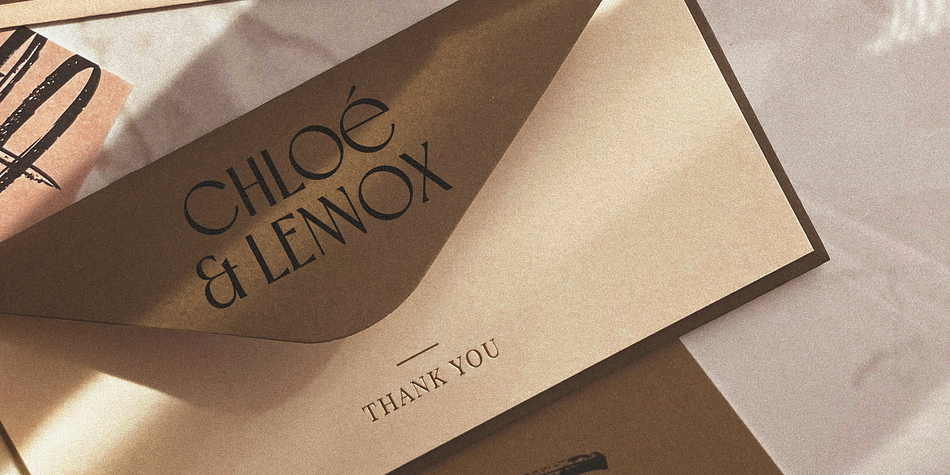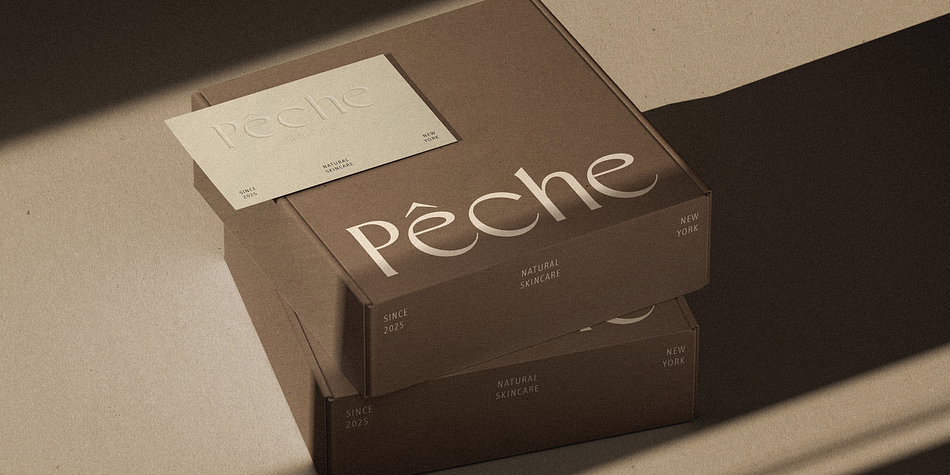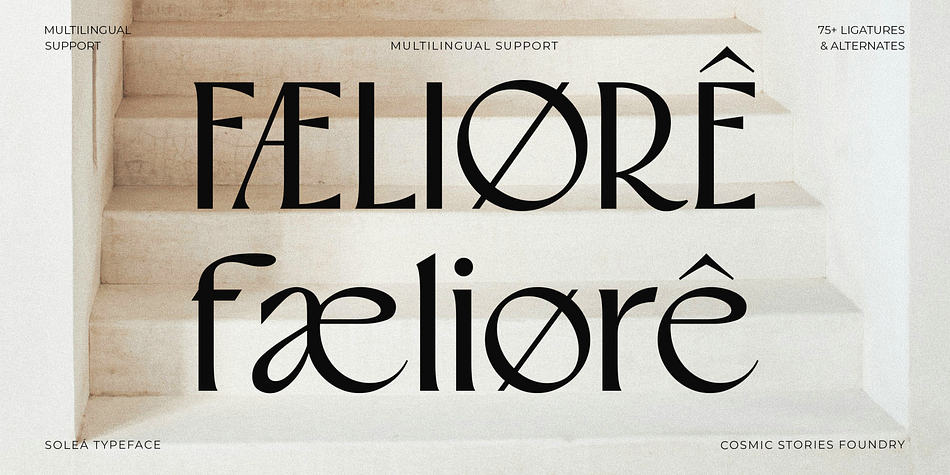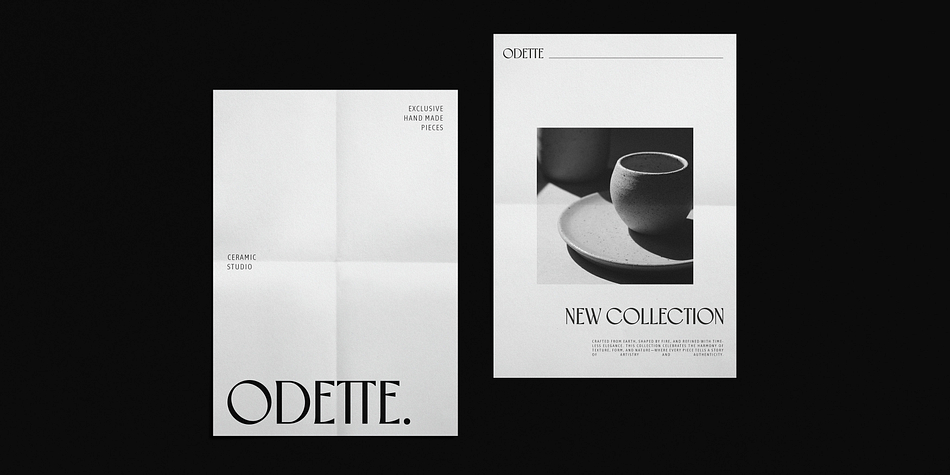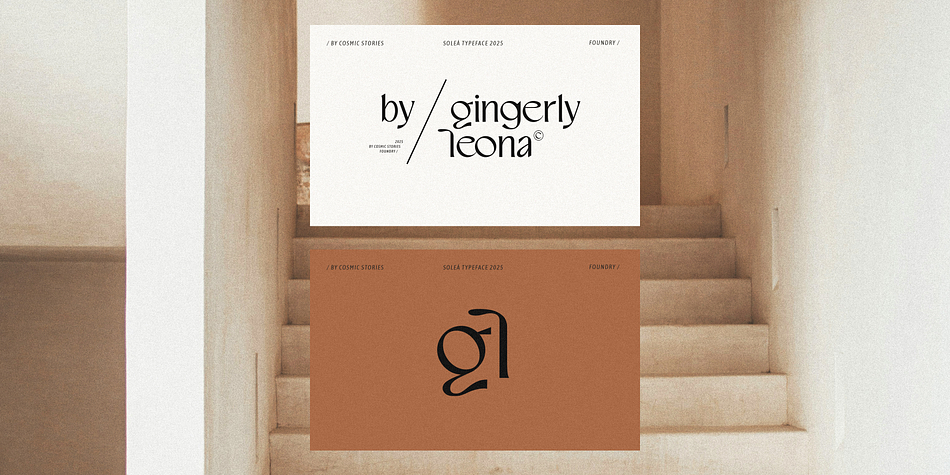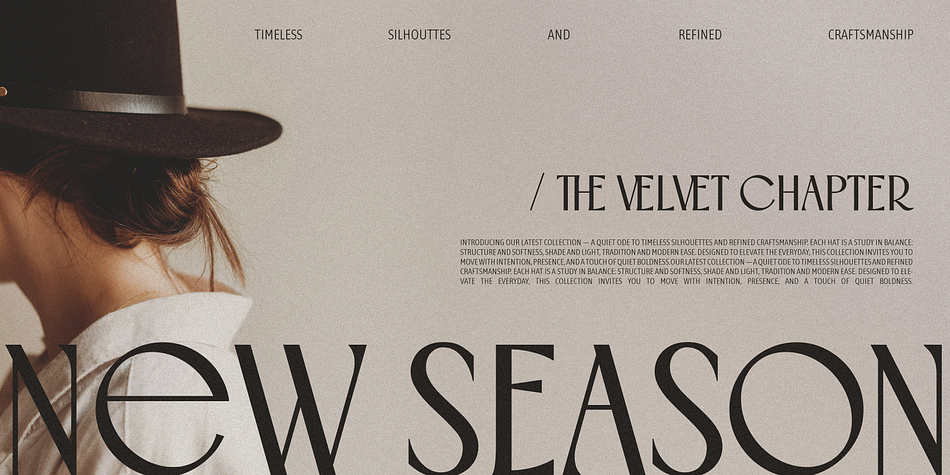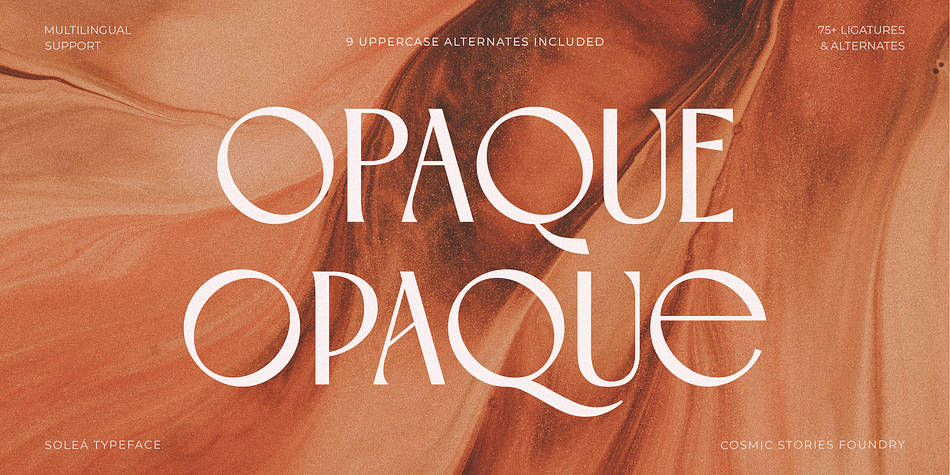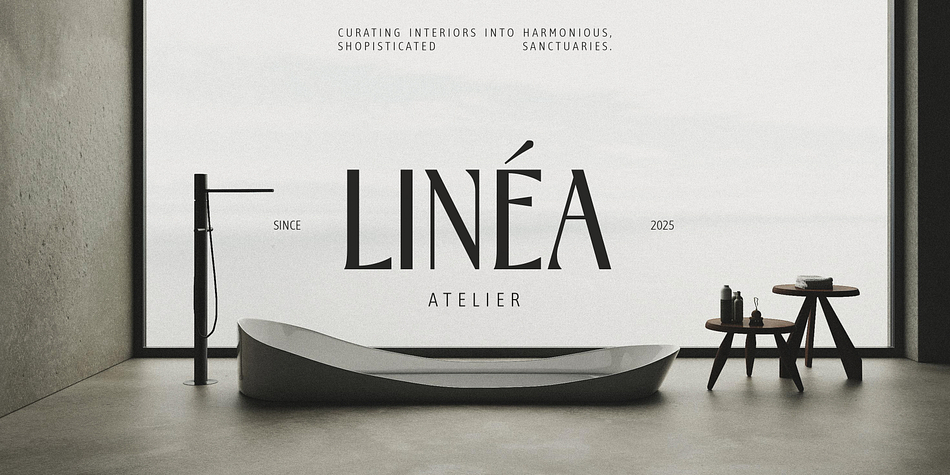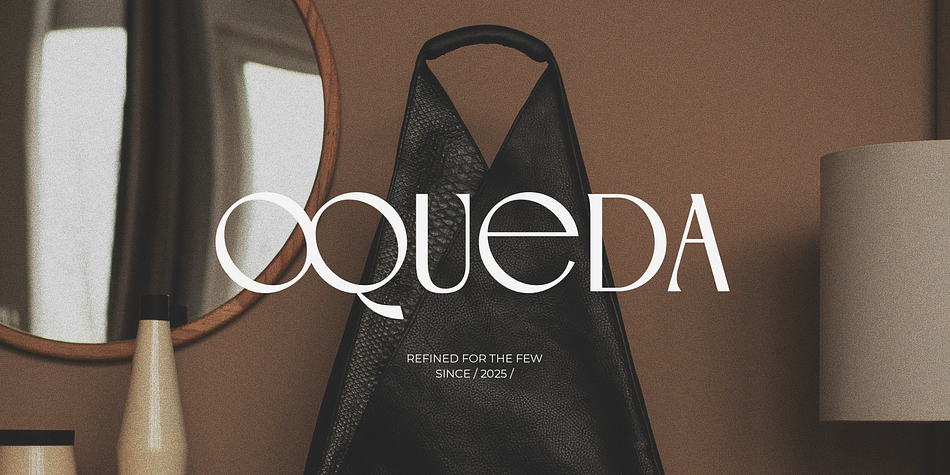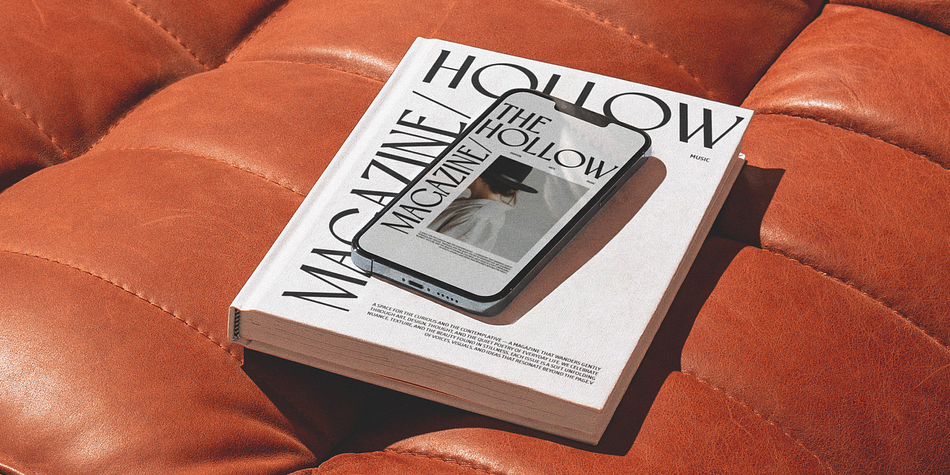
Soleá
Soleá is a sans serif font family published by Cosmic Stories Foundry.
Soleá Typeface – Modern Elegance with Character
Introducing Soleá, a modern sans serif typeface that redefines elegance through minimalist design and refined contrast. Created for sophistication and versatility, Soleá shines in logo design, headlines, editorial layouts, and brand identities.
While Soleá is a sans, it whispers of high-contrast forms with delicate, graceful curves and unexpected details that makes special every composition. Its stylistic alternates and over 55 ligatures bring expressive flair, allowing to craft visually unique typographic systems that feel both timeless and contemporary.
Whether building a luxury fashion brand, designing a cutting-edge magazine, or crafting minimalist packaging, Soleá offers the perfect balance between functionality and personality. With multilingual support and finely-tuned spacing, it’s as practical as it is poetic.
- 55+ Elegant Ligatures & Alternates
- Stylistic Sets for added personality
- Multilingual support (Western, Central & Eastern European languages)
Ideal for:
- Luxury branding
- Fashion editorials
- Minimalist packaging
- Modern web design
- High-end stationery
Let Soleá speaks by itself in your next bold, beautiful project.